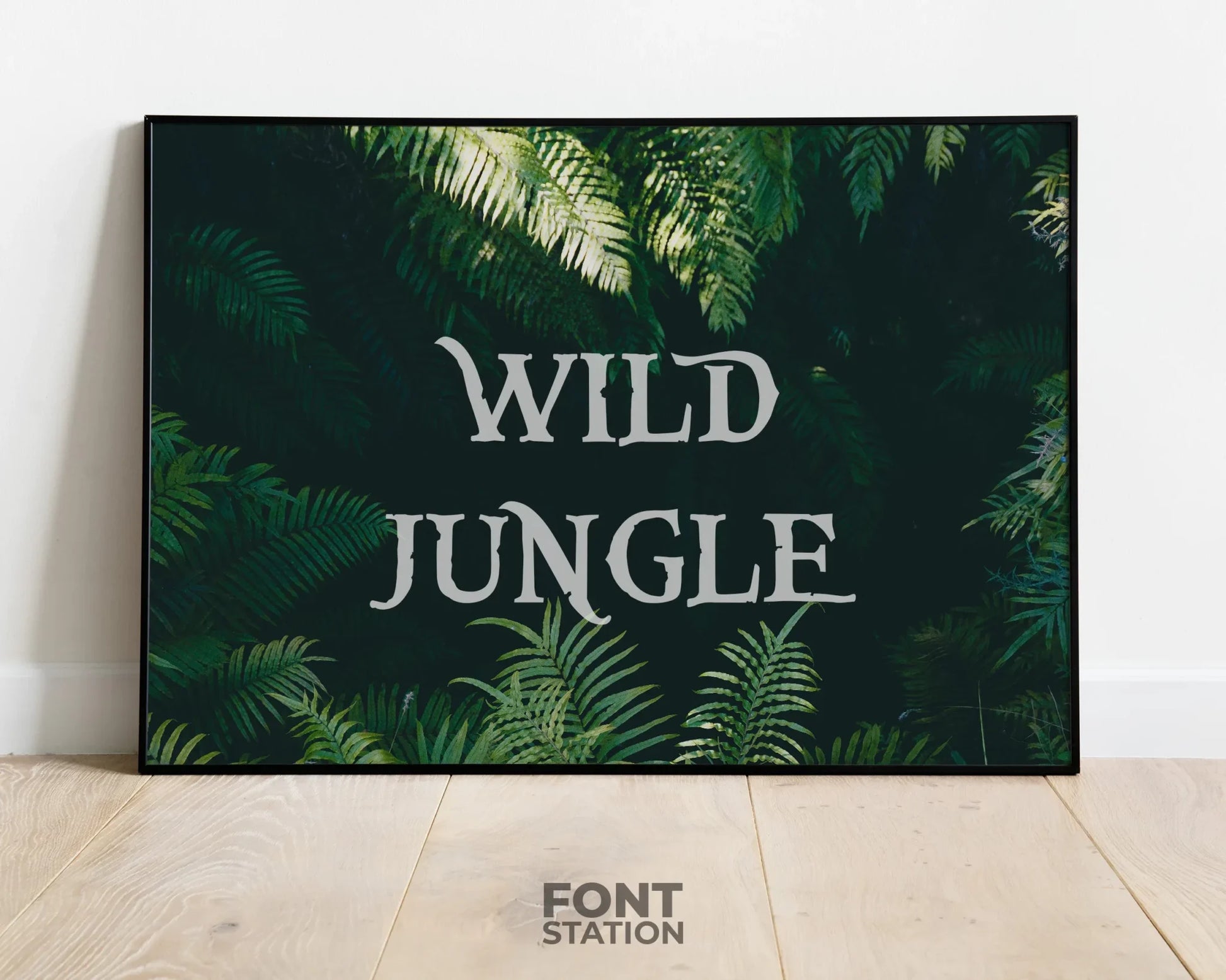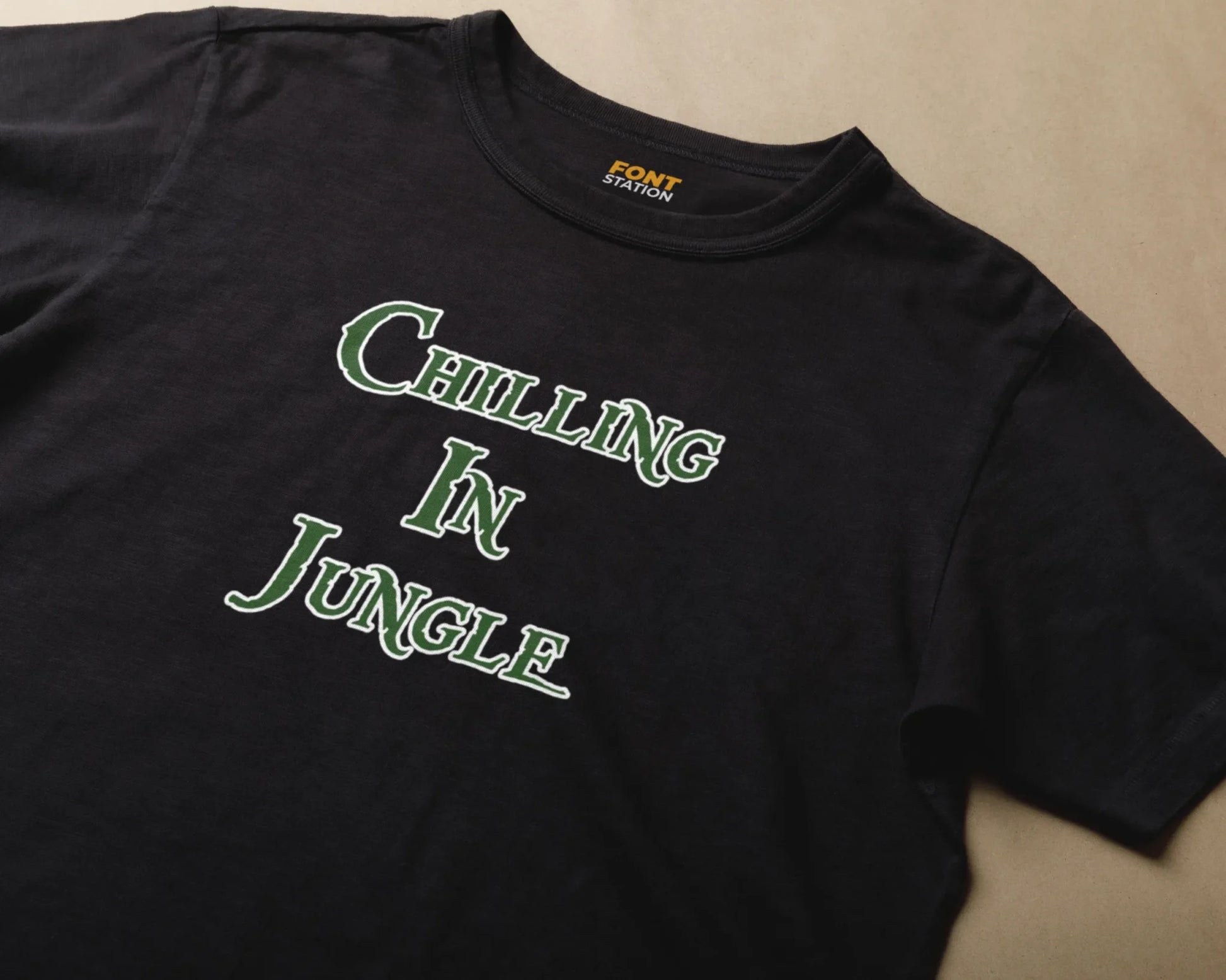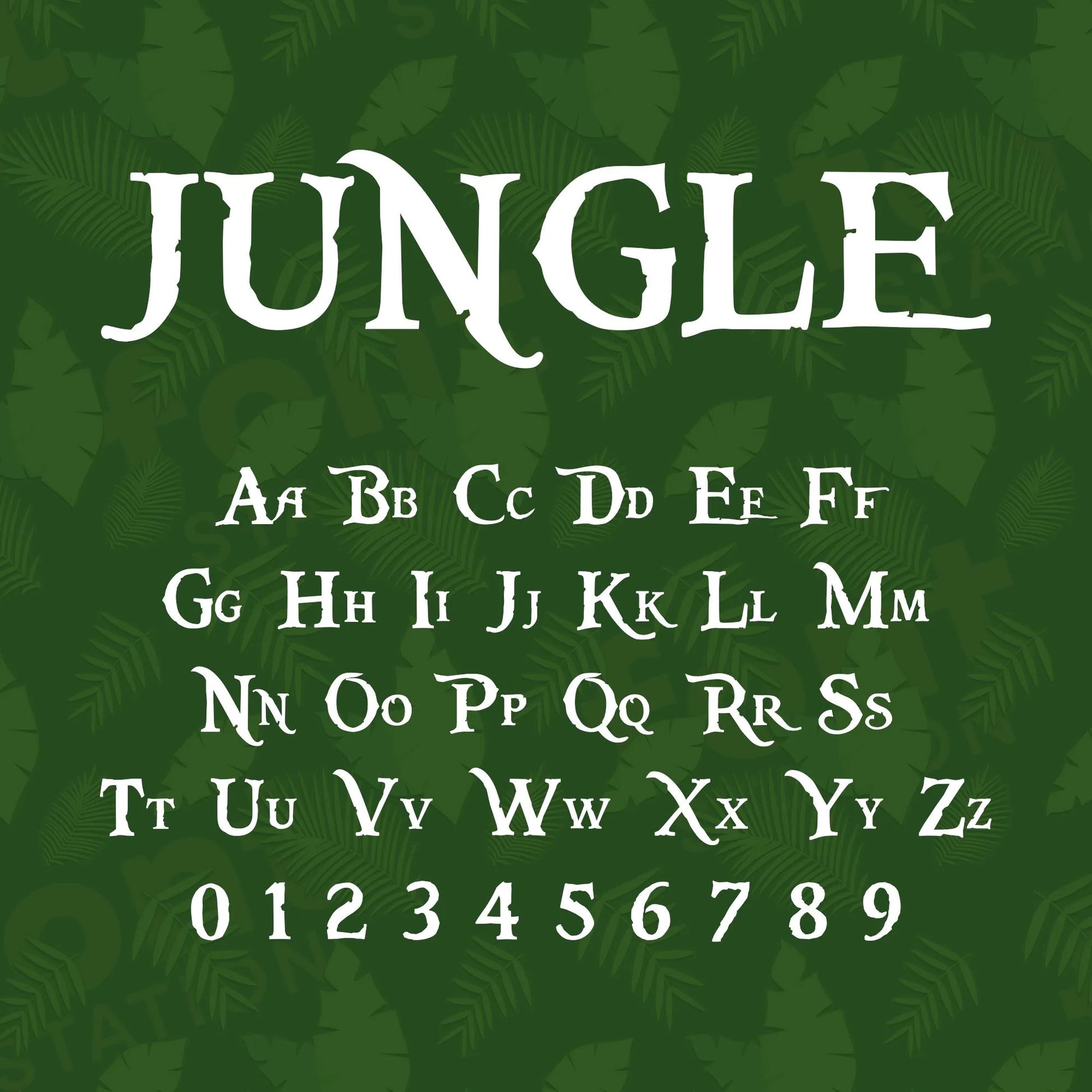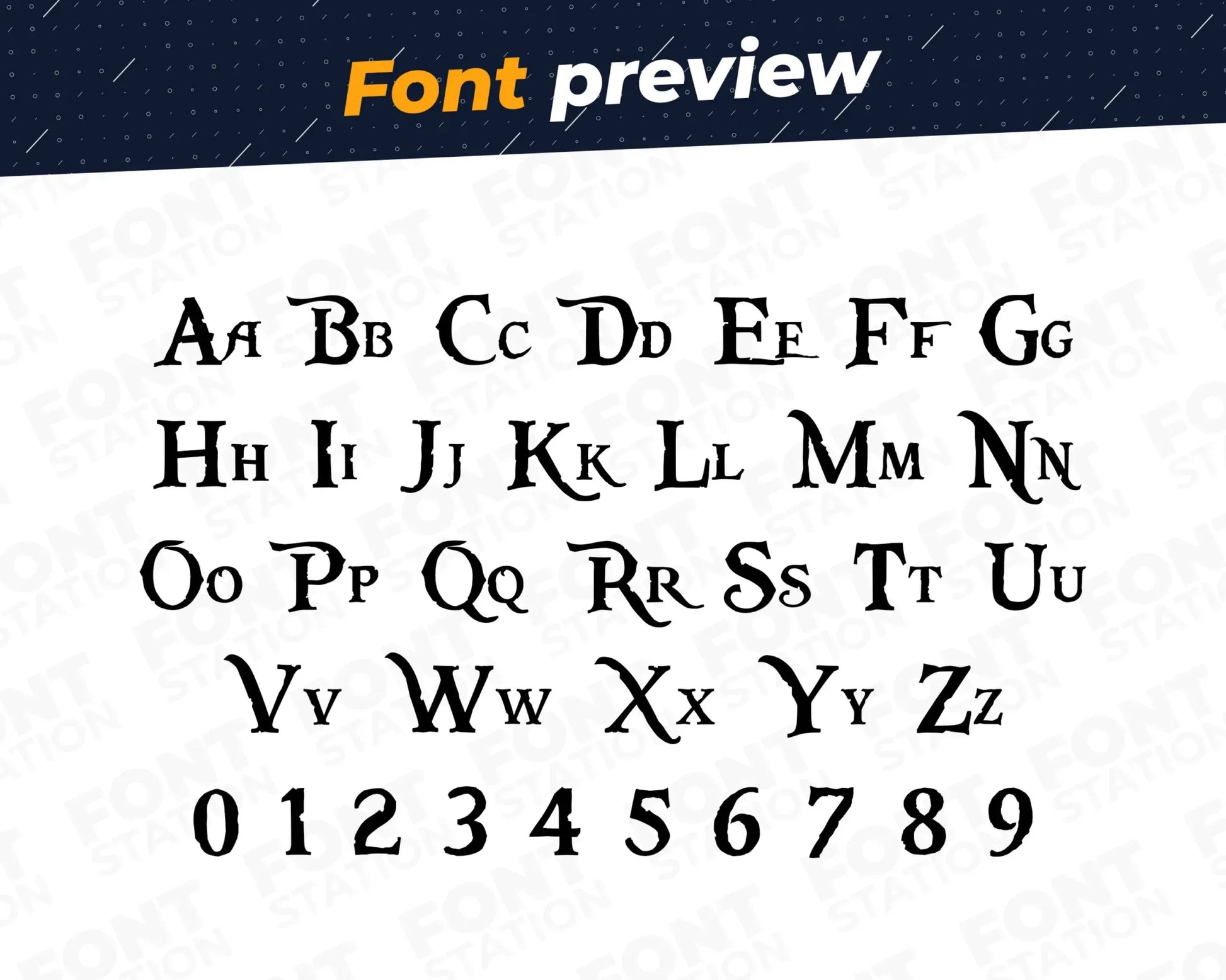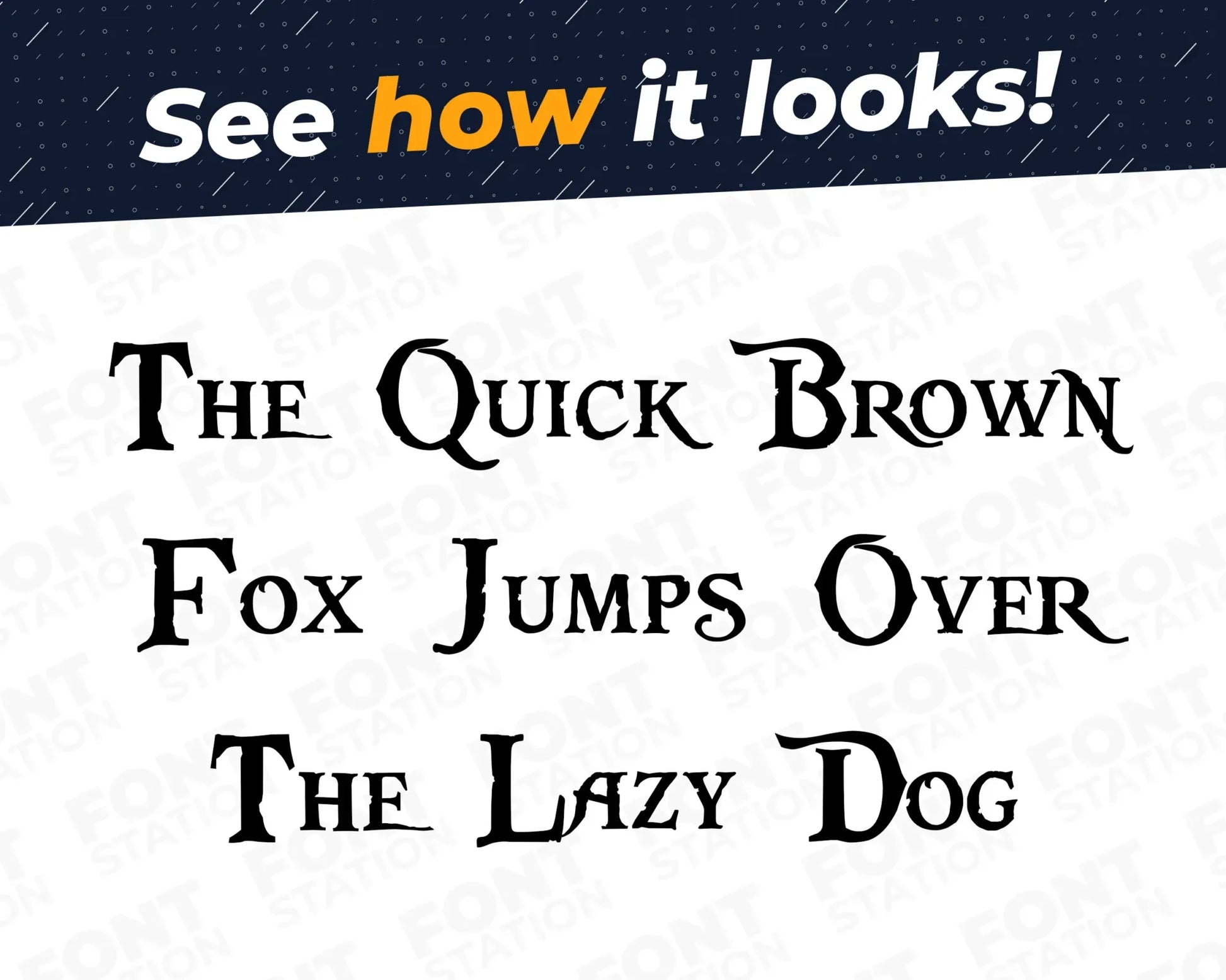
Wild Jungle Font
Wild Jungle Font Details
Our Wild Jungle typeface, inspired from tropical adventure font
Grab your computer, tablet or other device and start creating right now with our Wild Jungle font letters! Our Wild Jungle typography is inspired from tropical adventure font, making it ideal for various digital creations (logo, word...), sublimation, cake toppers, stickers, event decorations, and more.